MORE GREAT LETTERS.
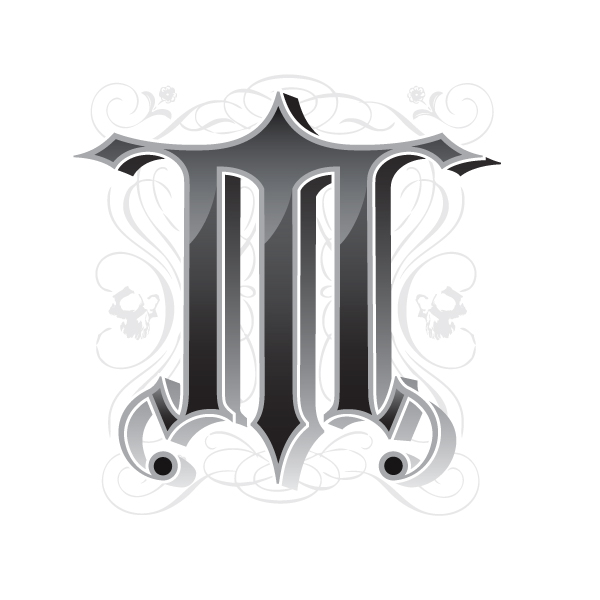
JESSICA FREASE
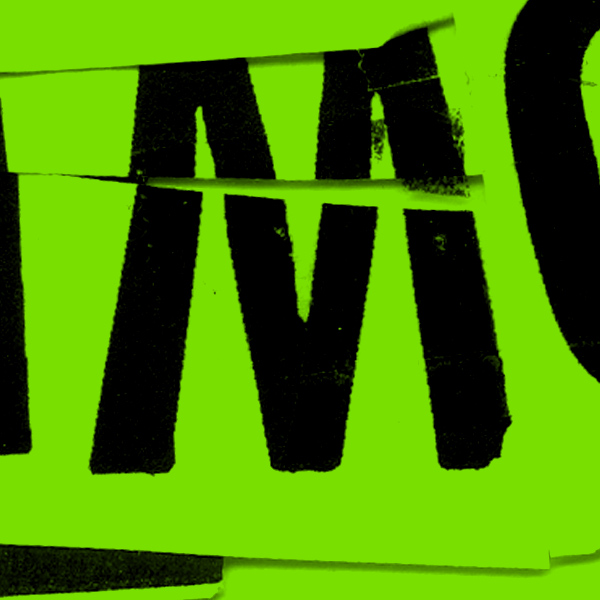
VERA WONG
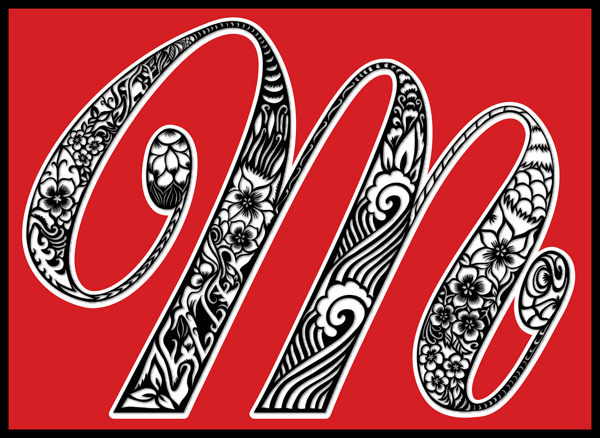
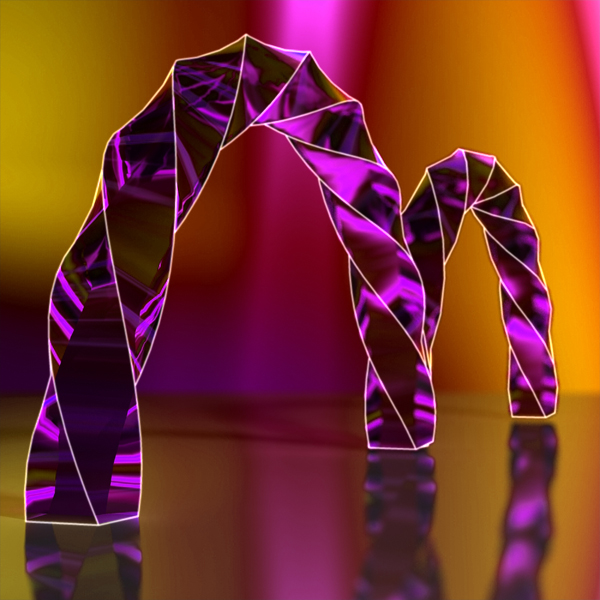
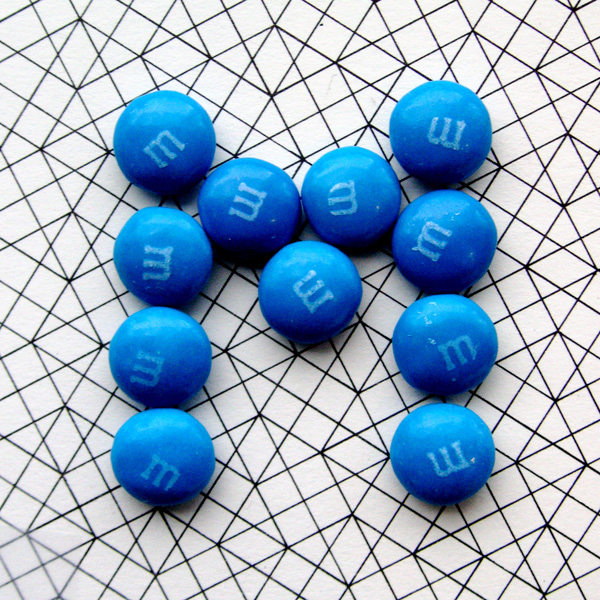
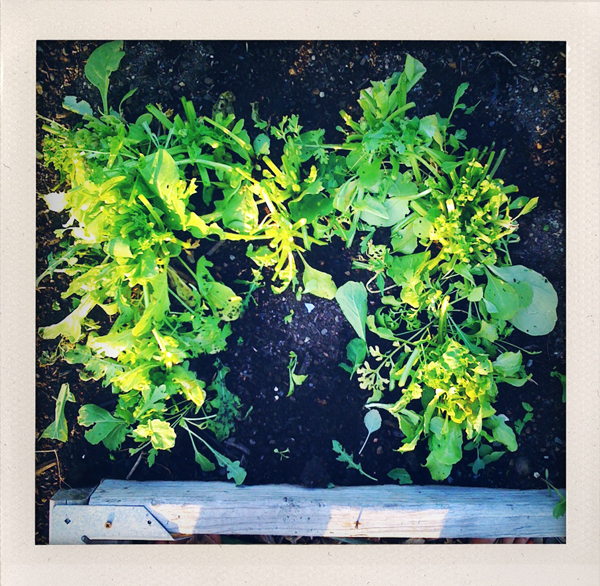
JULES R.
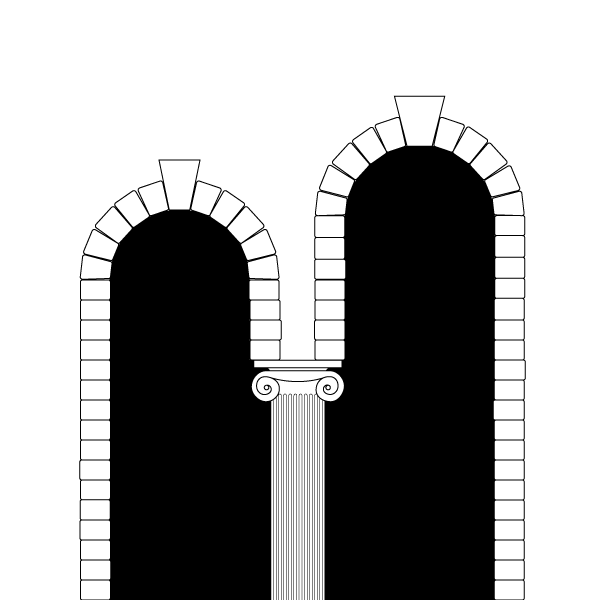
4 ANNIE HO
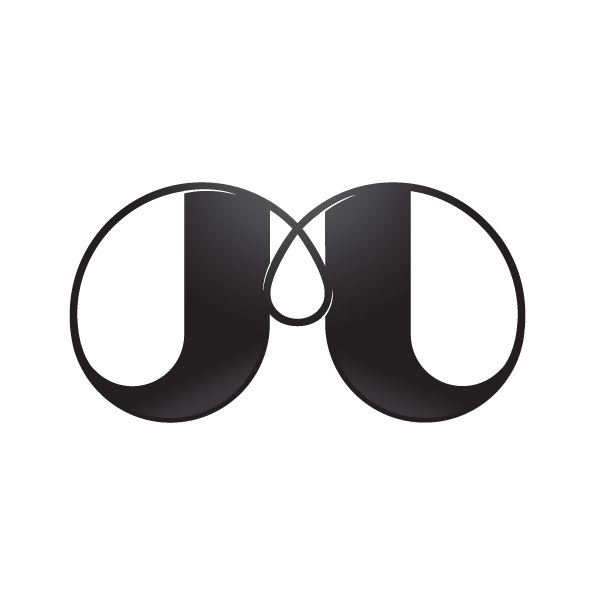
MARTIN BUNYI
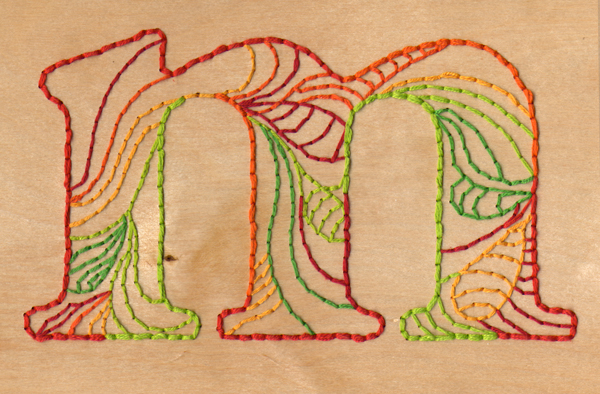
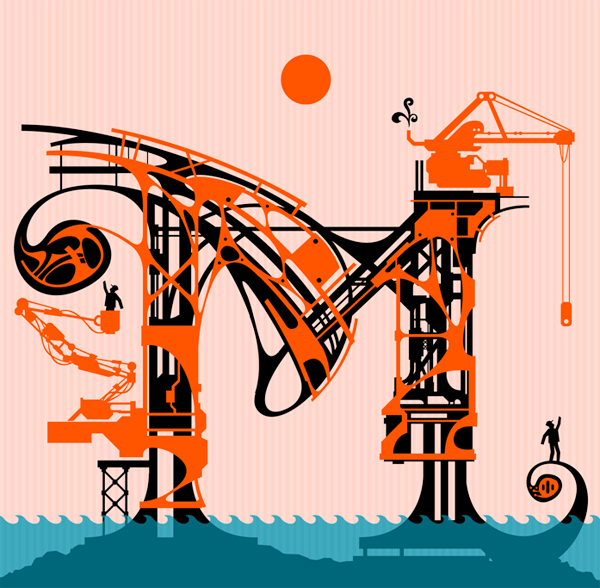
TIM CANNY
HELEN BAKER
SAM LOVE
TRISTON ROBINSON
JONALYNNE BUSTAMANTE
I was going to pick out a few favorites and list them, but there are so many great ones.
I’m particularly fond of the black and white photo piece, the subway map, the colored dots, the red and black ornamental one, the robot…
Nice Chris Silverman ! >Don’t really like the colors, but good construction
Good collection again. Jacques Le Bailly and Dave Bailey, my featureds.
Love the M&M M. But why just use the blue ones?
must be because they like blue the best